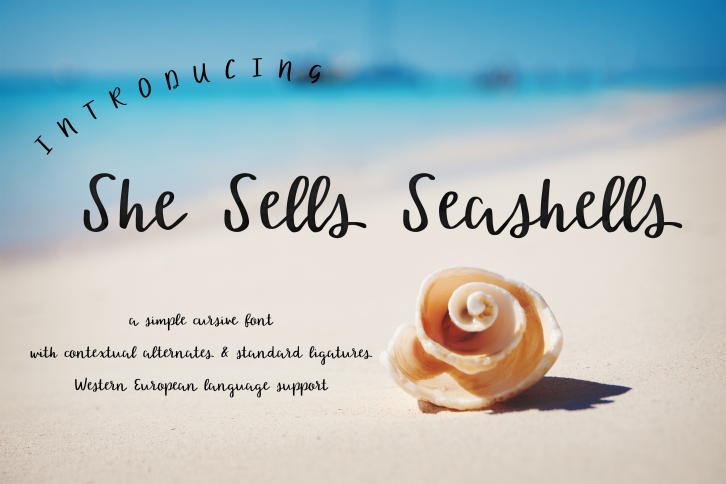
She Sells Seashells Cursive is a beautiful font that was designed by BeckMcCormick. It's a great choice for designers and creatives who need such a font. It was released on May 30, 2017 and the file size is 21.21 MB. She Sells Seashells Cursive may give a more youthful, expressive and casual look to your project. It is a very beautiful, refined, elegant, and high-quality font.